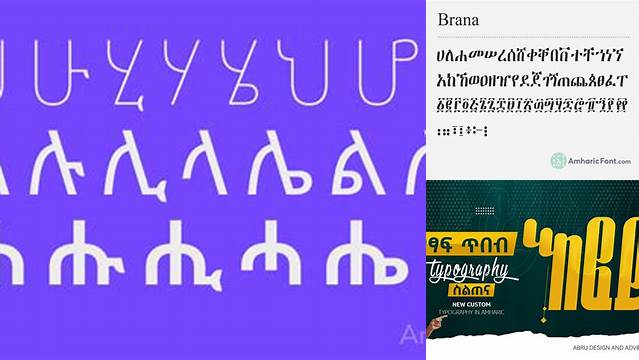
New Amharic Fonts 2026: The Future Of Ethiopian Typography
Hey everyone, are you ready to dive into the exciting world of new Amharic fonts? It's 2026, and the landscape of Ethiopian typography is about to get a major makeover! We're talking about innovative designs, enhanced readability, and fonts that truly capture the spirit of Amharic. Let's face it, the way we communicate is always evolving, and fonts are a crucial part of that evolution. So, buckle up, because we're about to explore what's new, what's improved, and what to expect from these incredible new fonts.
The Evolution of Amharic Fonts
Guys, let's take a quick trip down memory lane. Remember the early days of Amharic fonts? They were, let's just say, a work in progress. They often struggled with rendering the unique shapes and complexities of Ge'ez script. Now, fast forward to today, and the improvements are astounding! We've gone from basic, often clunky fonts to sophisticated, beautifully crafted designs. The core of this change? Technological advancements, improved understanding of typographic principles, and a passionate community of font designers. Early fonts were restricted by the technical limitations of the time, but as technology evolved, so did the possibilities. We started to see fonts that not only displayed Amharic characters but also did so with elegance and accuracy. Then, the rise of OpenType technology, which brought even more advanced features to the table. This allowed for contextual alternates, ligatures, and other features that made Amharic fonts more visually appealing and readable. The impact of this has been huge. We can now read Amharic text with greater ease, and the aesthetic quality of the fonts enhances the overall reading experience. Beyond the technical aspects, the design community also played a massive role. Designers began to deeply understand the nuances of the Ge'ez script and create fonts that honored its heritage while also reflecting contemporary design sensibilities. The result is a dynamic and diverse range of fonts that can be used across various platforms and for many different purposes, like from official documents to artistic projects. We are not just talking about improving the way the letters look; we're also talking about improving the way people experience reading Amharic. It’s a transformation that's really changed how people in Ethiopia and around the world interact with the language. Pretty neat, huh?
Challenges in Amharic Font Design
Designing Amharic fonts isn’t a walk in the park, my friends. There are some unique challenges that font designers face. First off, the Ge'ez script, which is used for Amharic, is a syllabary. This means each character represents a syllable, not a single sound. This leads to many variations for each letter, including different forms depending on the vowels they're combined with. So, you're not just designing 26 letters; you're designing potentially hundreds of glyphs, each of which needs to be meticulously crafted. Secondly, the aesthetic requirements are super-demanding. The fonts need to be readable and beautiful, which is a tough balance to strike. Achieving this balance requires a deep understanding of both the script's historical context and the principles of modern typography. You need to know the historical context to stay true to the script's roots, and you need to understand the principles of modern typography to make the fonts look cool and modern. Designers also need to consider the technical aspects. Fonts must work seamlessly on different devices and platforms, from phones to desktops. This means ensuring compatibility and supporting features like OpenType. Also, the diversity of needs. There's not just one type of reader. The font must work well for various reading materials: books, websites, and signs. Font designers have to make their font versatile enough to look great everywhere. Creating successful Amharic fonts requires expertise, creativity, and a lot of patience.
New Amharic Fonts in 2026: What to Expect
Alright, let's get to the good stuff! What can we expect from the new Amharic fonts coming out in 2026? Well, for starters, we're going to see even more advanced features. We're talking about improved support for complex scripts, better rendering on various devices, and more stylistic options. We're also expecting to see a rise in variable fonts. These fonts can dynamically adjust their weight, width, and other properties, which is super helpful for designers and creates more dynamic text. We're going to see new fonts designed with the best readability in mind, with consideration to the diverse reading conditions like screen sizes and lighting situations. You're going to see fonts tailored for different purposes, such as for textbooks, headlines, and digital interfaces. This means fonts that are specifically designed to enhance the visual experience and ensure that the user experience is a positive one. Plus, we're going to see a lot of emphasis on cultural relevance. Designers are taking the heritage and meaning behind each letter seriously. We're going to see fonts that are rooted in the culture of Ethiopia while also feeling fresh and modern. Finally, we should see more open-source Amharic fonts. These would make fonts available to a wider audience and encourage greater collaboration. The landscape is expanding rapidly, and new Amharic fonts are expected to push the boundaries even further!
Key Features of Next-Generation Fonts
So, what's going to make these new fonts stand out? Well, for starters, enhanced legibility will be a top priority. Designers are putting in a lot of effort to ensure that Amharic text is easy to read, no matter the size or the context. This means paying close attention to the shapes of the letters, the spacing between them, and the overall design. You will experience a variety of styles and aesthetics. We're going to see fonts that range from traditional to super contemporary. These fonts will meet various aesthetic preferences and needs, from official documents to creative projects. More support for digital environments is also essential. Designers will consider how the fonts render on different screens and devices, including responsiveness. We can expect improved handling of the technical challenges of the Amharic script. The new fonts will handle ligatures, contextual alternates, and other sophisticated typographic features with increased proficiency. Another key feature is that the fonts will be tailored for accessibility. Designers are making sure that the fonts are readable for everyone, including those with visual impairments. Finally, we'll see more options for customization. You can adjust the font weight, width, and other properties to fit your specific needs. Overall, next-generation fonts are designed to offer a superior reading experience and a wider range of design possibilities.
The Impact of New Fonts on Ethiopian Culture and Communication
The launch of new Amharic fonts is going to be huge for Ethiopian culture and communication. These new fonts will enhance the cultural identity and promote the language. The fonts will reflect the unique heritage of Ethiopia and will provide a means for people to express their identity through typography. They will play a key role in the preservation and celebration of the Amharic language. The fonts will promote the use of the language in various fields, from education to business and creative endeavors. These new fonts are sure to improve communication. The improved readability and visual appeal will make it easier for people to engage with the Amharic language. That will lead to a more informed and connected society. Then, consider the boost to the creative industries. The new fonts give designers and creators new tools to tell stories. Whether they are designing books, websites, or any other project, new fonts will provide a creative and more expressive medium for everyone. So, the impact of these fonts goes far beyond aesthetics. It's all about cultural identity, language preservation, and strengthening communication. Pretty cool, right?
The Future of Amharic Typography
So, what does the future hold for Amharic typography? I think it’s going to be super exciting! We can expect to see a continued emphasis on innovation, with designers constantly pushing the boundaries of what’s possible. We will be seeing more diverse styles and aesthetics to suit many different needs and preferences. We can look forward to improvements in technology and design to make fonts more versatile, readable, and accessible. There will be opportunities for designers to collaborate to keep growing and innovating. The future of Amharic typography is filled with potential, and it’s going to be fascinating to see how it all unfolds. With increased investment and recognition, the future of Amharic typography is looking bright! These are some exciting developments that will impact the world of typography! The future of Amharic typography is bright, dynamic, and full of promise.
So, there you have it! A sneak peek at the exciting new Amharic fonts coming in 2026. From improved readability to enhanced cultural representation, these fonts are set to transform the way we experience Amharic. Whether you're a designer, a writer, or just someone who loves the beauty of language, it's an exciting time to be a part of the Amharic typography scene. Get ready to embrace the future and enjoy the beauty of these new designs!